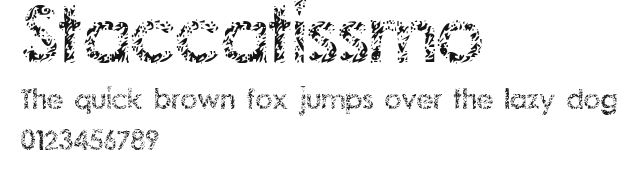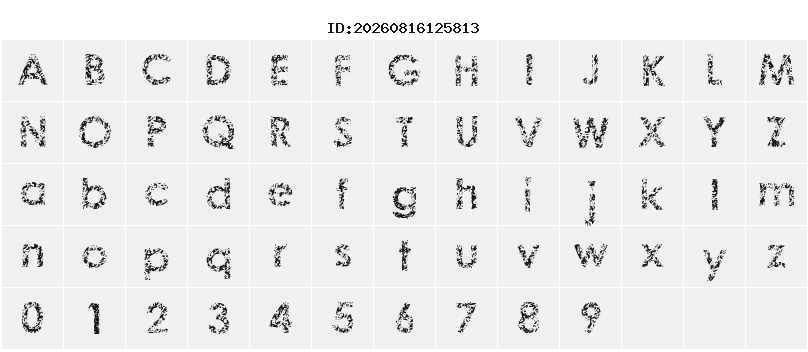
• Font Name: Staccatissmo
• Full Font Name: Staccatissmo
• PostScript Name: Staccatissmo
About Staccatissmo.ttf
Staccatissmo.ttf is a modern, elegant sans-serif font designed for ultimate readability and visual harmony. Perfect for branding, headlines, web design, and print materials.